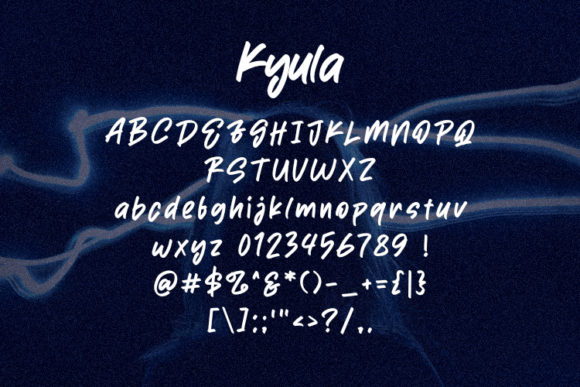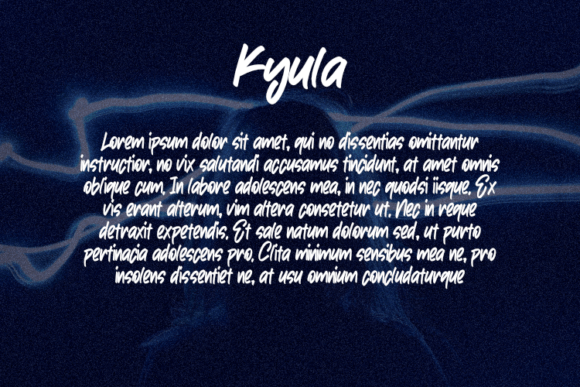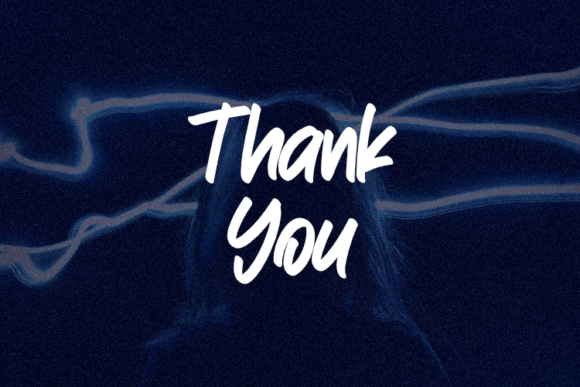
Introduction to Kyula Font
As a designer, have you ever stared at a blank canvas, waiting for inspiration to strike? For many of us, it’s that moment of creative clarity when everything falls into place – the perfect color palette, the ideal font, and the cohesive narrative. That’s where the Kyula Font comes in – a game-changer for designers seeking a reliable and stylish font for their next big project.
Whether you’re working on a trendy apparel line, crafting eye-catching t-shirts, or exploring an array of other creative endeavors, the Kyula Font is the perfect design resource to have in your toolkit. Its adaptability and versatility make it an indispensable asset for designers, allowing them to bring their ideas to life with ease and finesse.
Key Features of Kyula Font
- High-quality design resource with a unique, elegant aesthetic, suitable for creative projects.
- Features a transparent background, allowing for seamless integration with custom designs and backgrounds.
- Comes in a range of sizes, from 12 to 72 points, and resolutions of up to 300 DPI, making it suitable for various design applications.
- Designed with a focus on versatility, making it an ideal choice for a wide range of creative projects, from logos to typography-based designs.
Honest Review: Kyula Font
I recently had the opportunity to work with the Kyula Font, and I must say it’s been a game-changer for my creative projects. As a designer, I’m always on the lookout for high-quality fonts that can elevate my designs and make them stand out.
The Kyula Font is a great addition to my design resource library. It’s a versatile font that can be used for a variety of creative projects, from logos to brochures. One of the things I love about this font is its unique design, which gives it a distinct and modern feel. ✨
Here are some of the key features that I appreciate about the Kyula Font:
- Transparency option for backgrounds, which is great for layered designs
However, I do have to mention a few limitations: ⚠️
- The font is not ideal for large-scale headings or titles, as it can get a bit blurry
- The transparency option can sometimes cause issues with layering
Overall, I’m really impressed with the Kyula Font, and I think it’s a great addition to any designer’s library. It’s a high-quality font that’s perfect for creative projects, and the free download option is a major bonus. I’d definitely recommend it to anyone looking for a new font to add to their design resource arsenal.
– Use Kyula Font to create professional-looking graphics and designs for social media and marketing materials.
– Incorporate Kyula Font into your designs to add a touch of elegance and sophistication.
– Use Kyula Font to create engaging presentations and documents that stand out from the crowd.
To get the most out of Kyula Font, follow these tips:
- Combine Kyula Font with other design elements to create a unique and eye-catching look.
Kyula Font is ideal for use in the following scenarios:
- Graphic design and visual branding.
- Marketing materials and advertising.
- Web design and development.